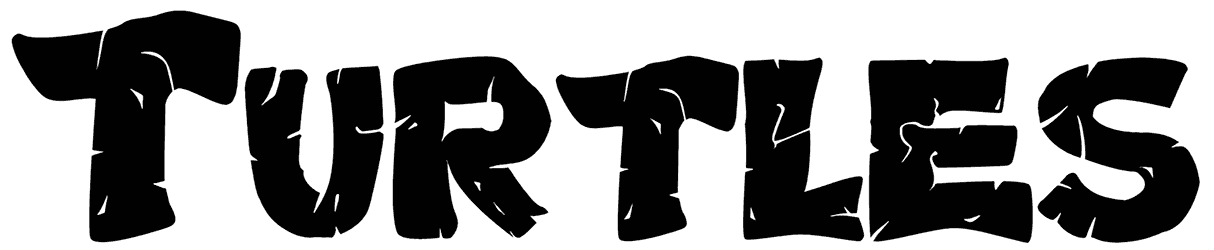
Turtles Font
Turtles is an adorable cartoon font that comes with a wavy style and instills a feeling of momentum, tenderness, fierceness, or drama in the audience’s minds.
This all-caps eroded font would look insanely perfect on all of your professional requirements such as anime posters, video game brochures, logos, gift cards, or product packaging. Just in case you are looking for another masterpiece in the same mood, don’t hesitate to visit our archive.
This thick, distressed typeface is based on the popular clasic “Teenage Mutant Ninja Turtles” logo. Includes the Euro, extended punctuation, and accent characters.